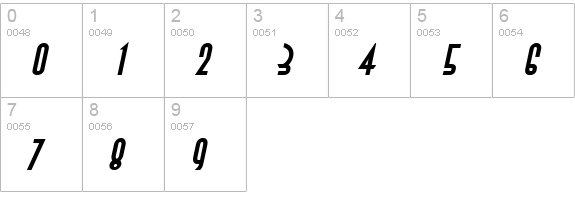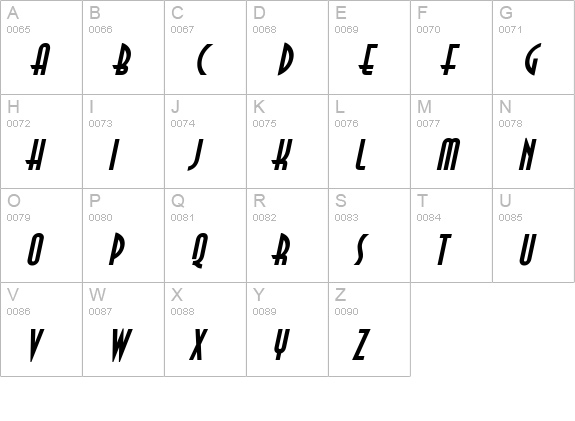
Asia Bold Italic Font Details
Asia Bold Italic is a strong, high-contrast, italic variant in the Asia typeface family \xE2\x80\x94 well suited to headlines, attention-grabbing titles, and strong calls-to-action.
Asia Bold Italic font is a striking and modern typeface that exudes confidence and sophistication. Its bold weight and italic styling make it perfect for creating eye-catching designs and grabbing attention. The sleek and contemporary look of Asia Bold Italic font makes it ideal for various projects, from branding to editorial designs. But the best part? Asia Bold Italic font is completely free to download at FontsMarket.com. This means you can easily access this versatile and stylish font to elevate your designs without breaking the bank. Don't miss out on the opportunity to enhance your projects with the bold and dynamic Asia Bold Italic font, available for free at FontsMarket.com.